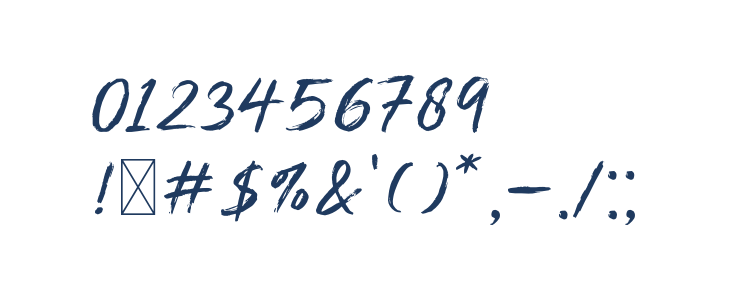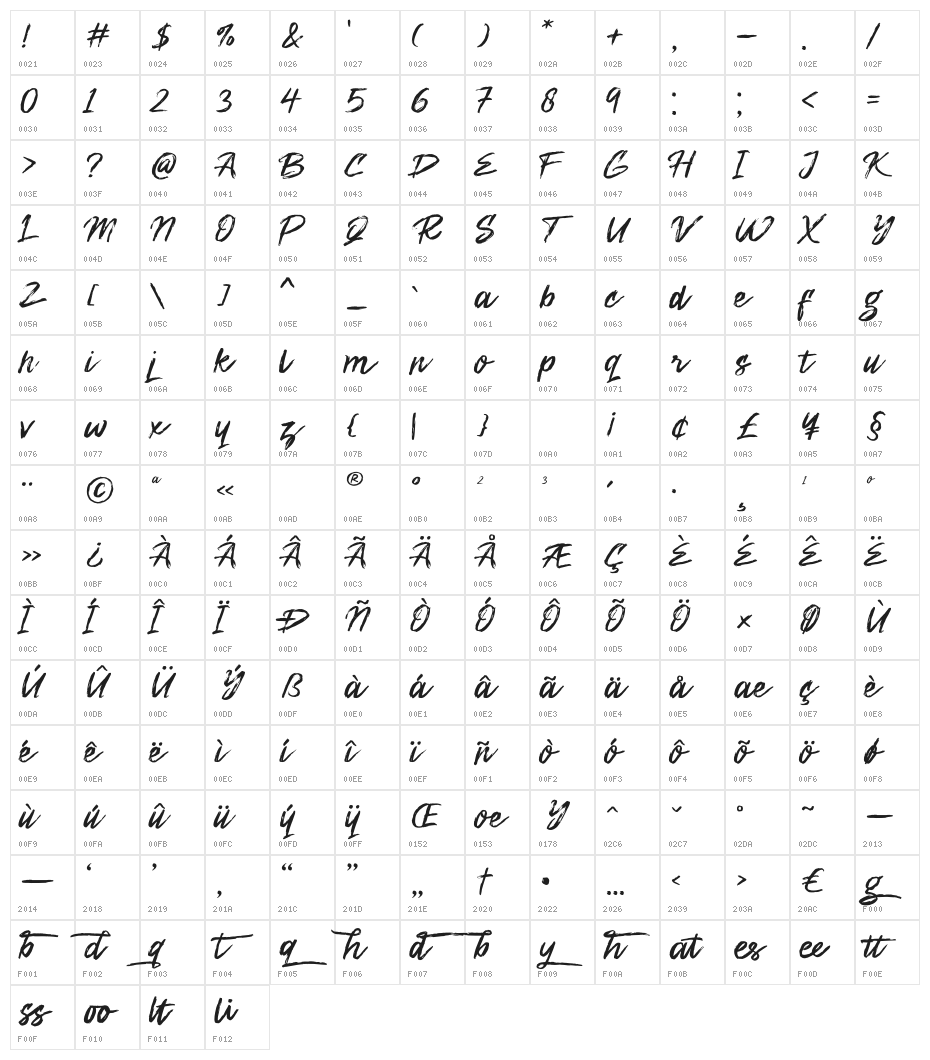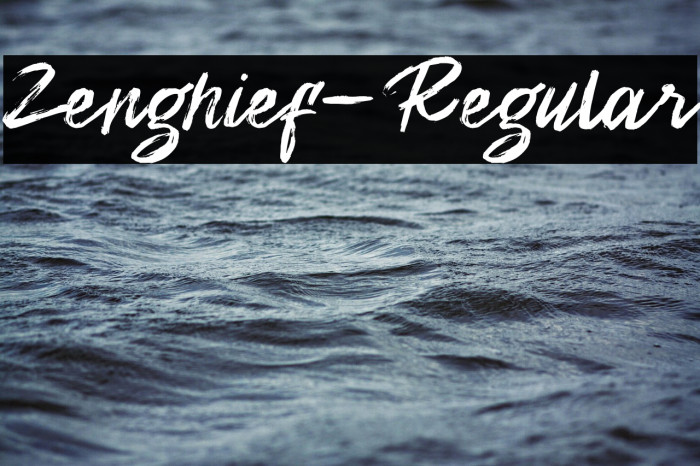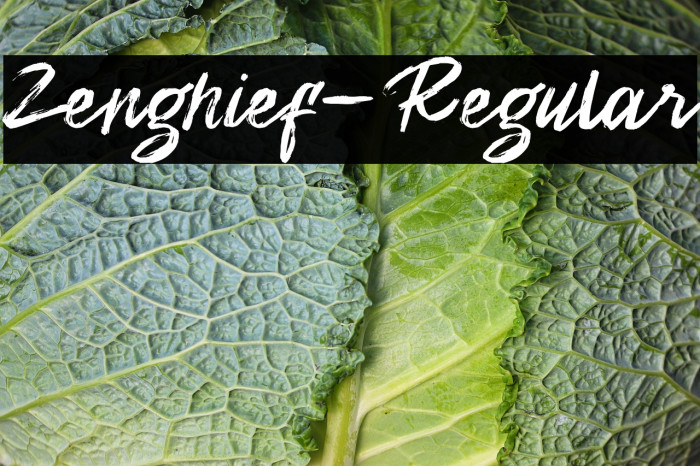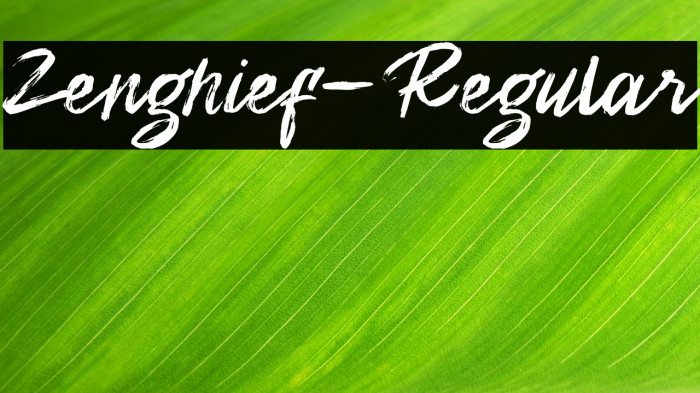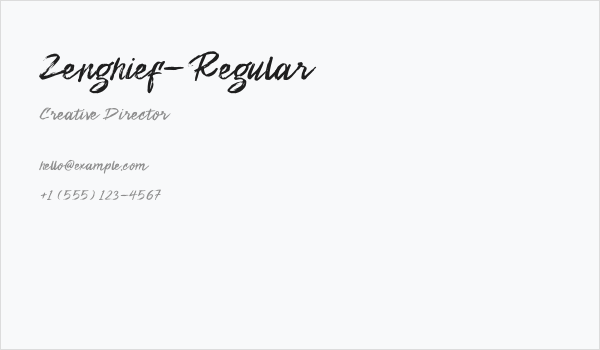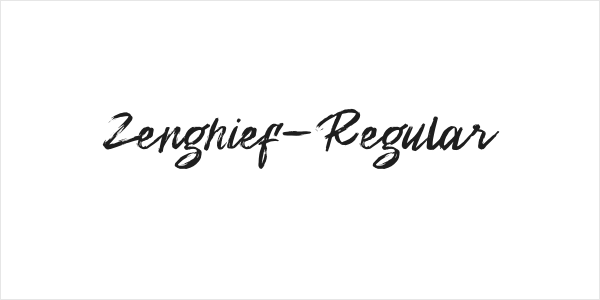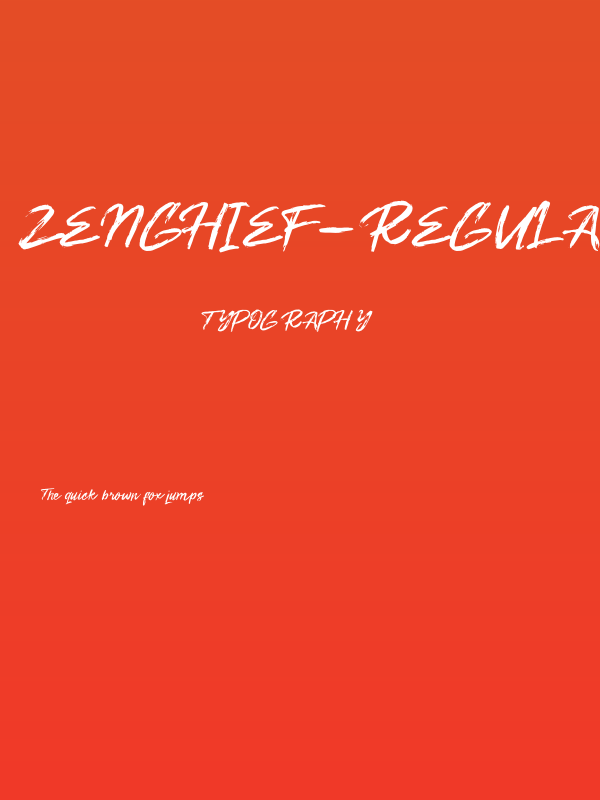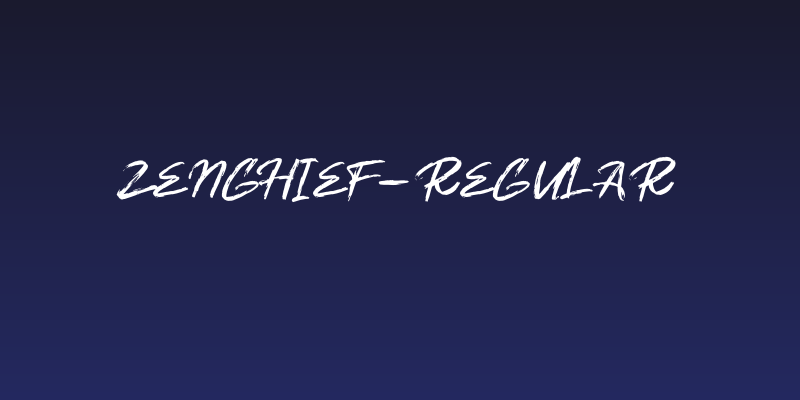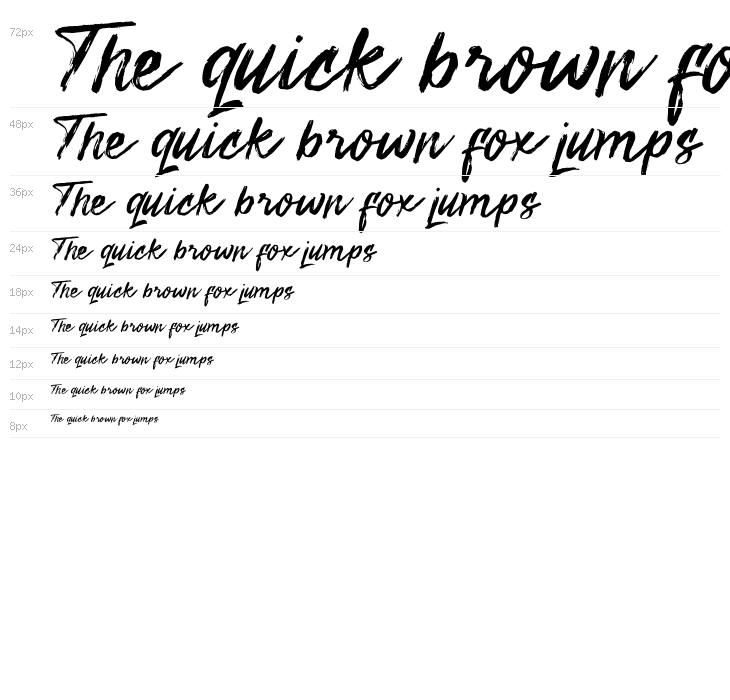
Zenghief-Regular Font
Zenghief-Regular Description
This font features a bold and expressive brush script style, characterized by its dynamic and energetic strokes. The letters are crafted with a sense of movement, giving them a lively and artistic appearance. The uppercase and lowercase letters maintain a consistent flow, with some characters exhibiting unique flourishes that enhance the overall aesthetic. The numbers and special characters are equally bold, maintaining the same brush-like texture. This font is ideal for projects that require a personal and creative touch, such as branding, posters, and invitations.